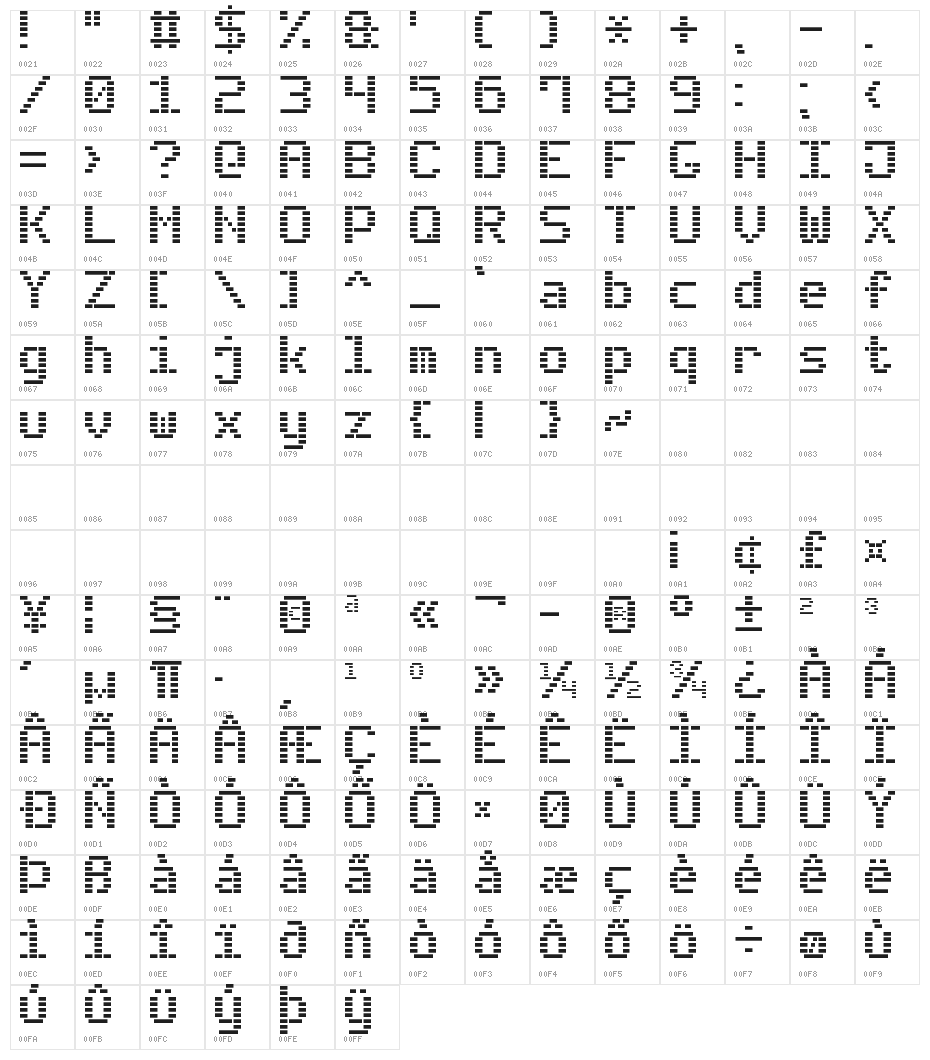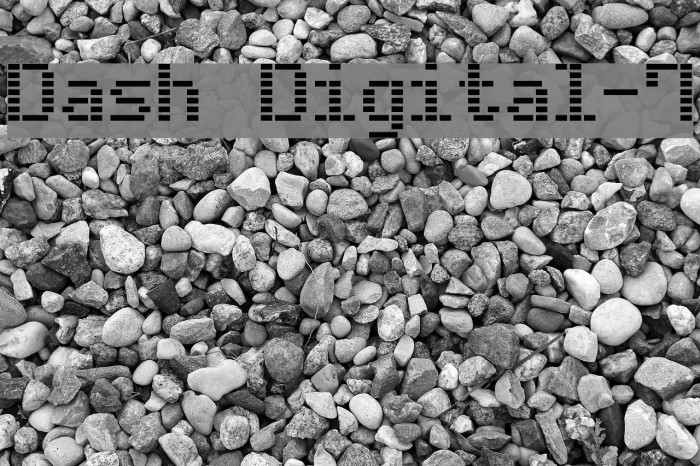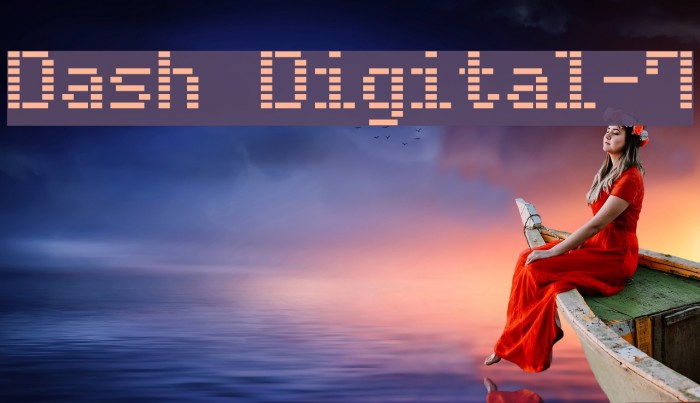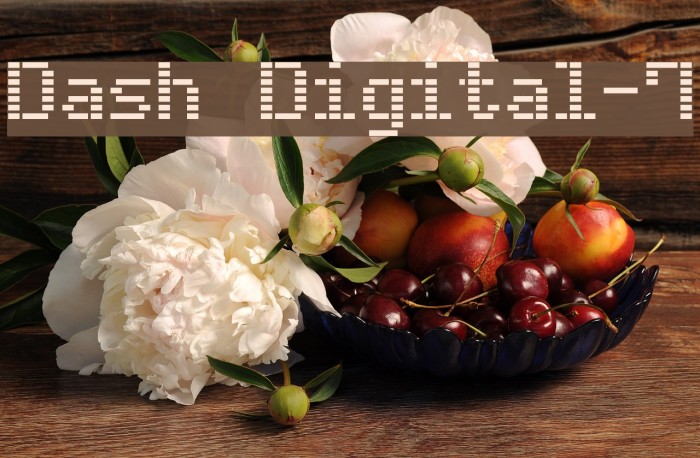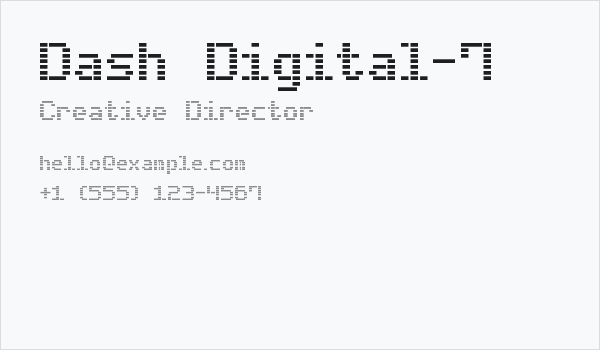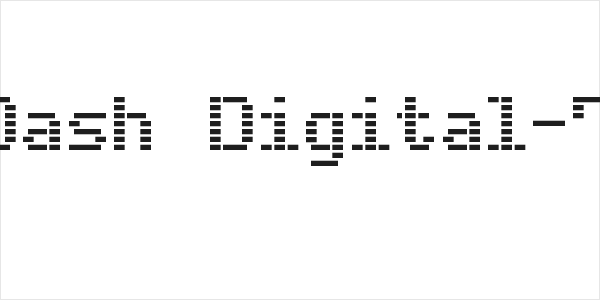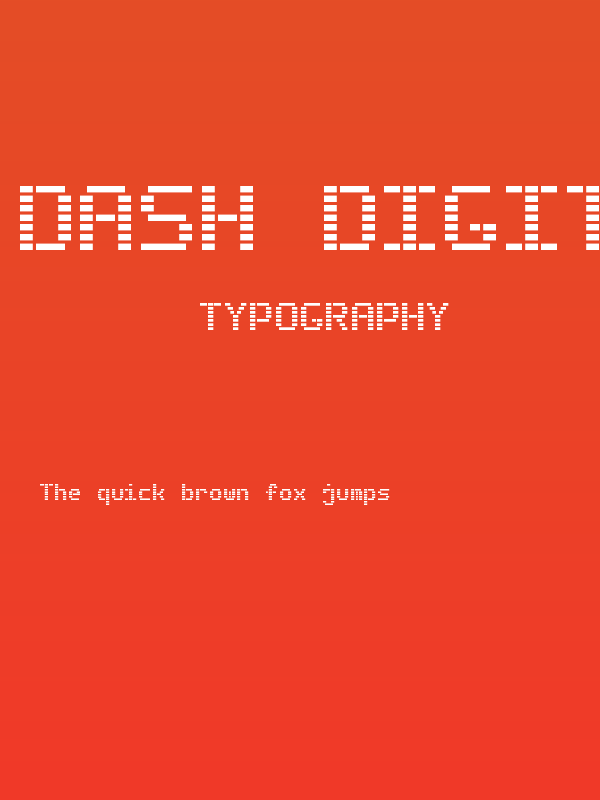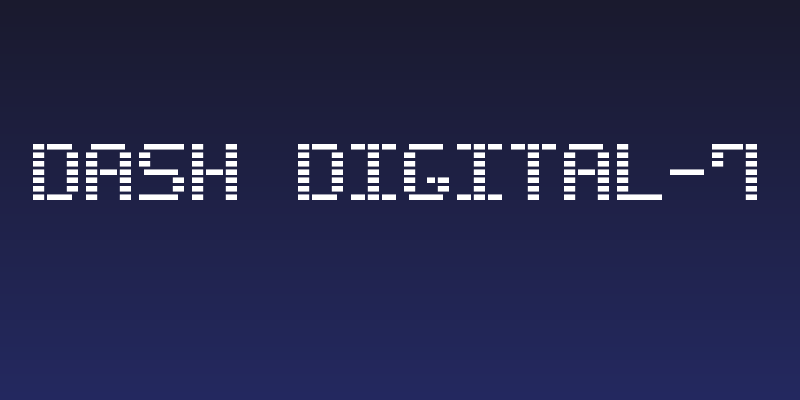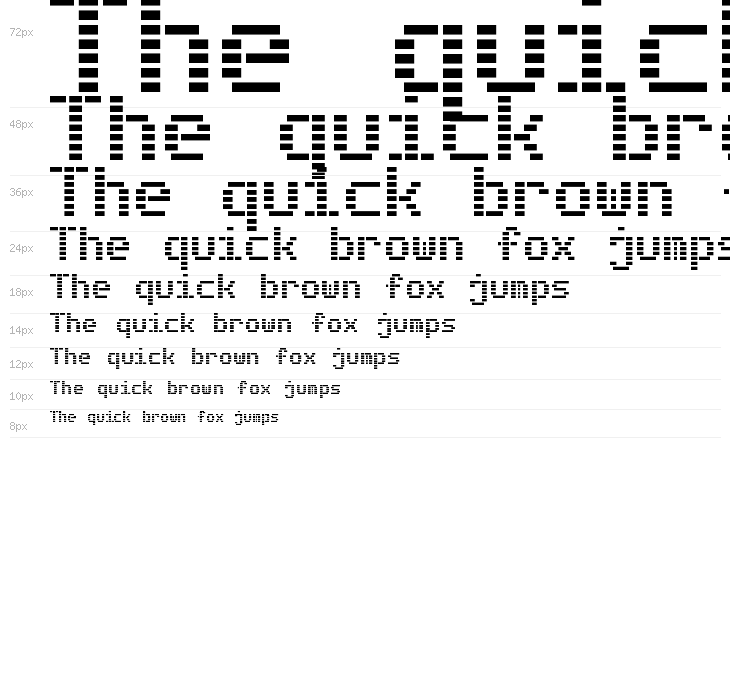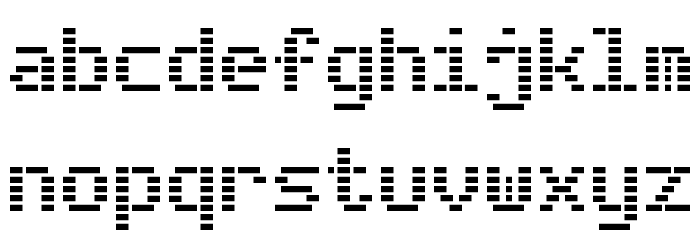
Dash Digital-7 Font
Dash Digital-7 Description
This font features a digital, pixelated style reminiscent of old digital clocks and displays. The characters are composed of small rectangular blocks, giving it a distinctly retro and technological appearance. The uppercase and lowercase letters maintain a consistent blocky structure, while the numbers and special characters follow the same digital theme. The uniformity in the design creates a cohesive look that is both nostalgic and modern. This font is ideal for projects that require a digital or tech-inspired aesthetic, such as digital art, retro-themed designs, or technology-related branding.
| Use Case | Logos, Headlines, Digital displays |
| Proposed Projects | Ideal for digital art, retro-themed designs, technology branding, and digital displays. |